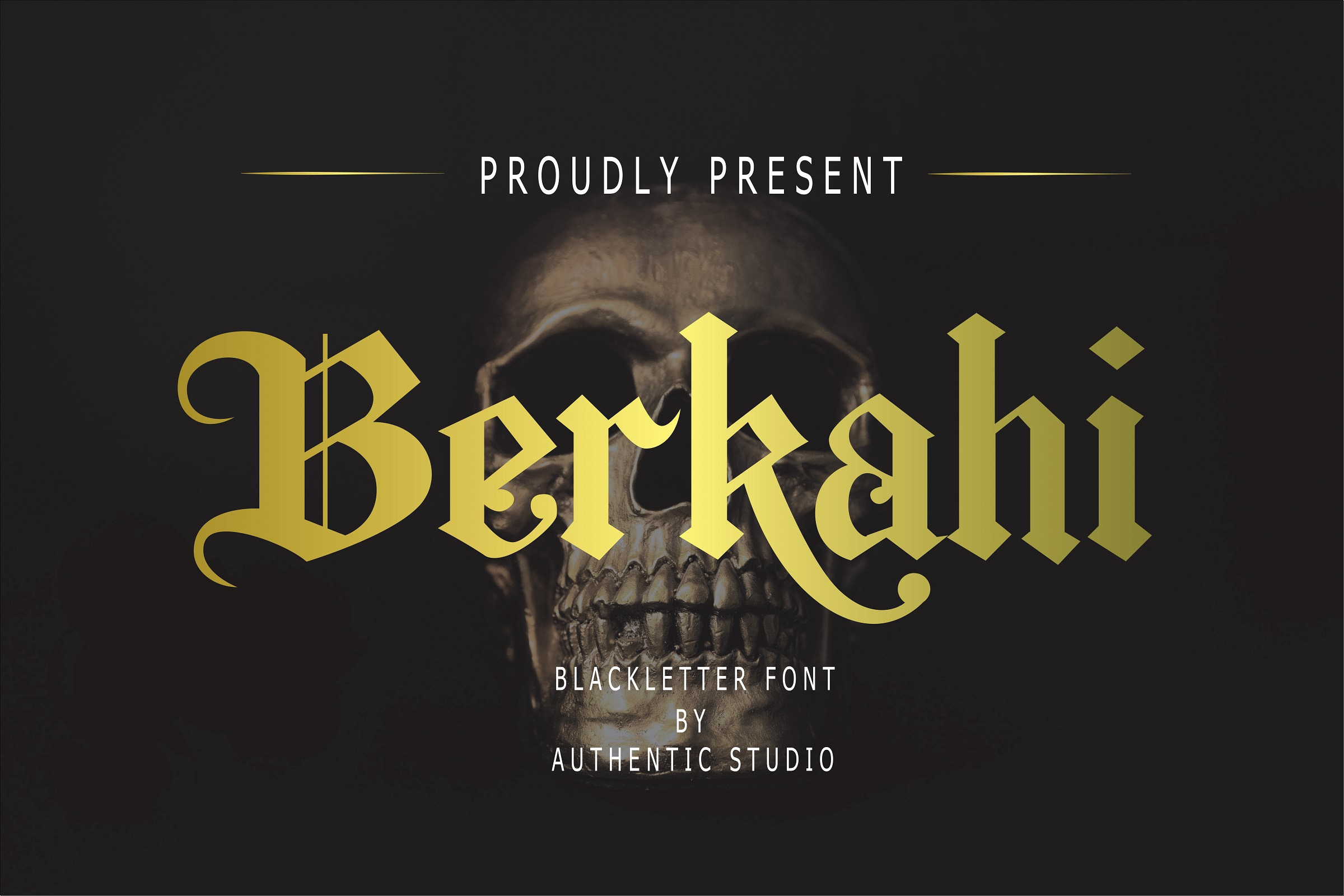
Berkahi Blackletter Font
Introducing Berkahi Blackletter Font, unique gothic blackletter for your design. perfect for tattoos clothing, labels and packaging, branding, or any Gothic-themed projects! i hope you enjoyed Include : Otf Ttf